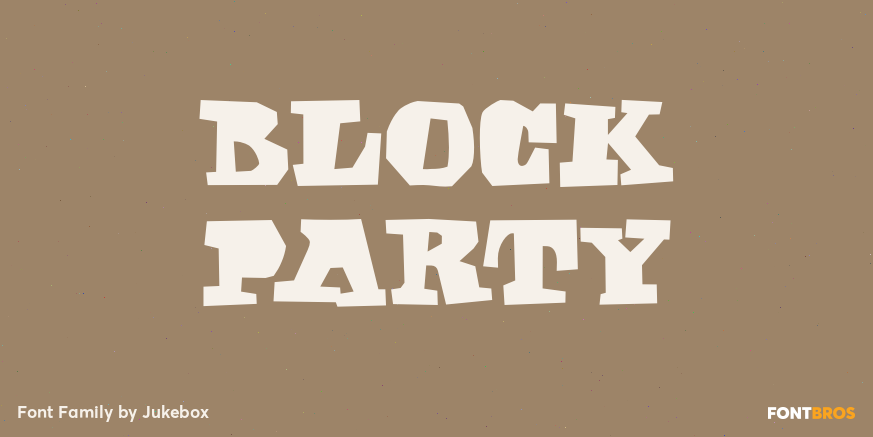
Block Party
About Block Party
Block Party is a heavy, rugged rough looking typeface that is great for any upbeat, childlike design. The clunky letterforms are primitive, pre-historic and fun. Jukebox fonts are available in OpenType format and downloadable packages contain both .otf…